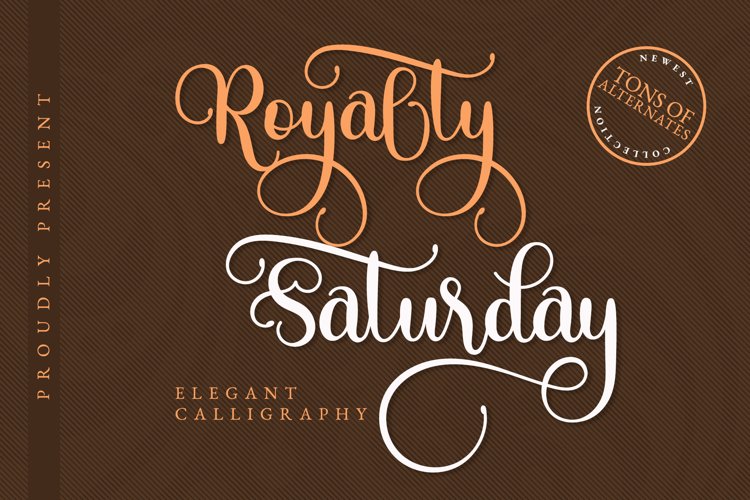
Royalty Saturday - Elegant Swirly Script
Royalty Saturday is elegant modern calligraphy script. It is luxurious, stunning, and swirly. It has tons of alternates to give many options in designing.
Royalty Saturday is such a fabulous font for any elegant projects, such as wedding invitation, branding, logo, lettering, crafting, and so on.
+Multilingual glyphs.